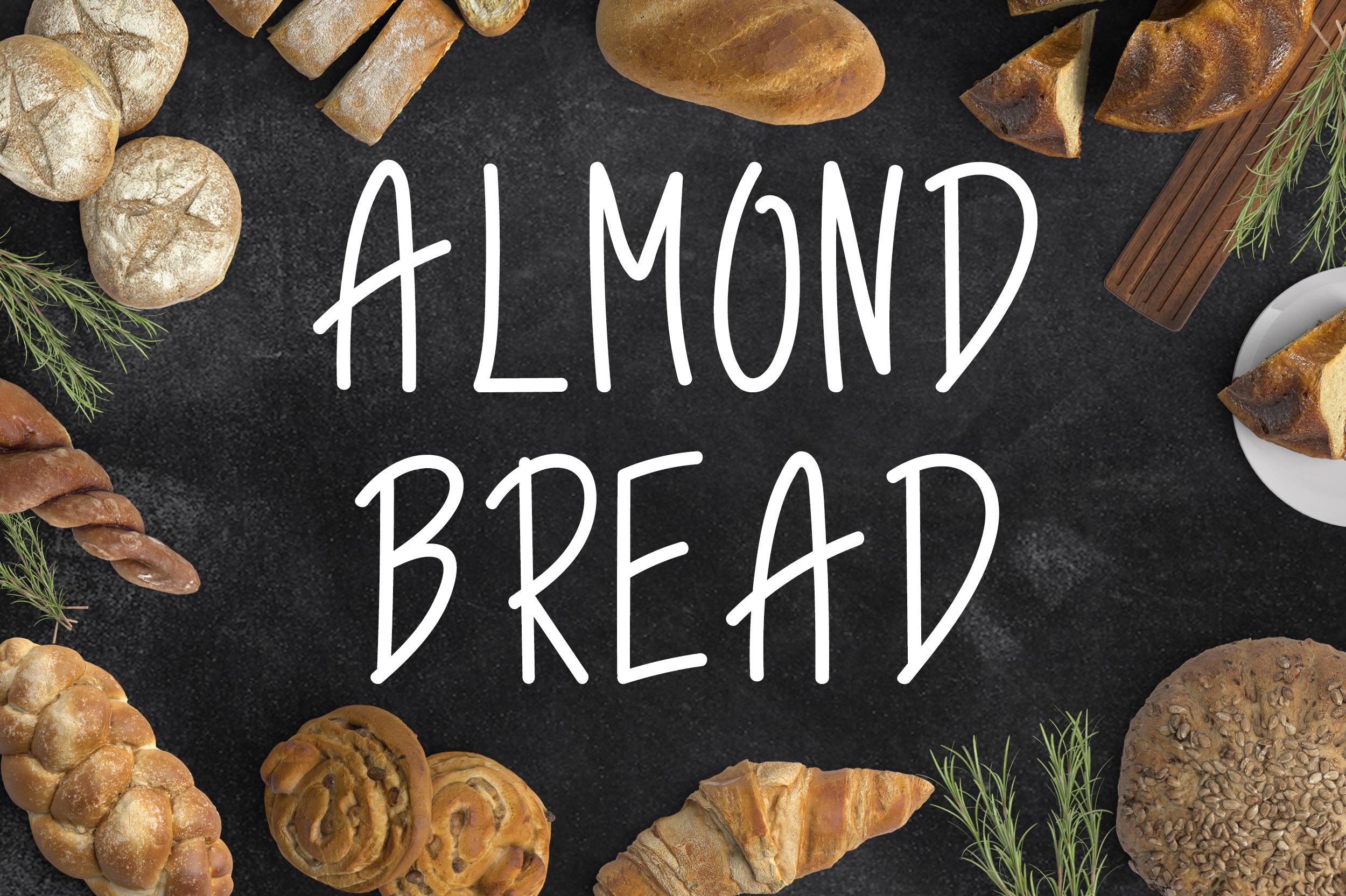
Almond Bread Font Description
Almond Bread is a cute and casual handwritten font with an incredibly friendly feel. It will elevate a wide range of design projects to the highest level, be it branding, headings, wedding designs, invitations, signatures, logos, labels, and much more!